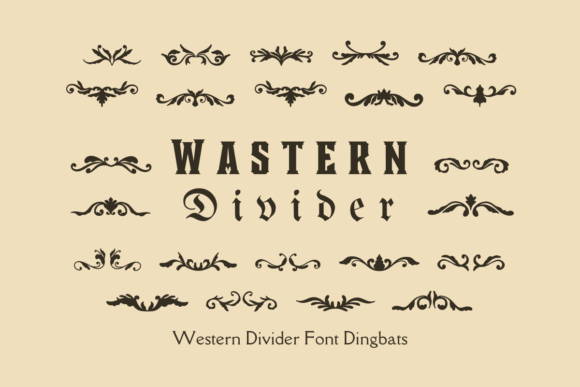
Dive into the world of festive typography with Wastern Divider, the ultimate dingbat font designed to spread holiday cheer. A creation of Sakti Avellin, this font family is brimming with magic, making it the perfect choice for all your Christmas-themed projects.
Wastern Divider is more than just a font; it's an invitation to let your creativity shine. Its playful upper and lowercase glyphs dance across your designs, adding a touch of whimsy and wonder. Say goodbye to ordinary fonts and hello to a world of endless possibilities.
Imagine crafting enchanting Christmas cards that come alive with festive greetings, or creating custom invitations that transport your guests to a winter wonderland. Stickers, T-shirts, and birthday cards take on a new life when adorned with Wastern Divider's charming dingbats.
This font is not just limited to Christmas; its versatility knows no bounds. Let your imagination soar as you create eye-catching wall art, captivating web designs, and any other project that calls for a touch of merriment.
With Wastern Divider, the possibilities are as endless as the snowflakes that dance on a winter's day. Embrace the joy of the holiday season and let your creativity flourish. Make Wastern Divider your font of choice for spreading cheer and creating designs that sparkle with festive delight.